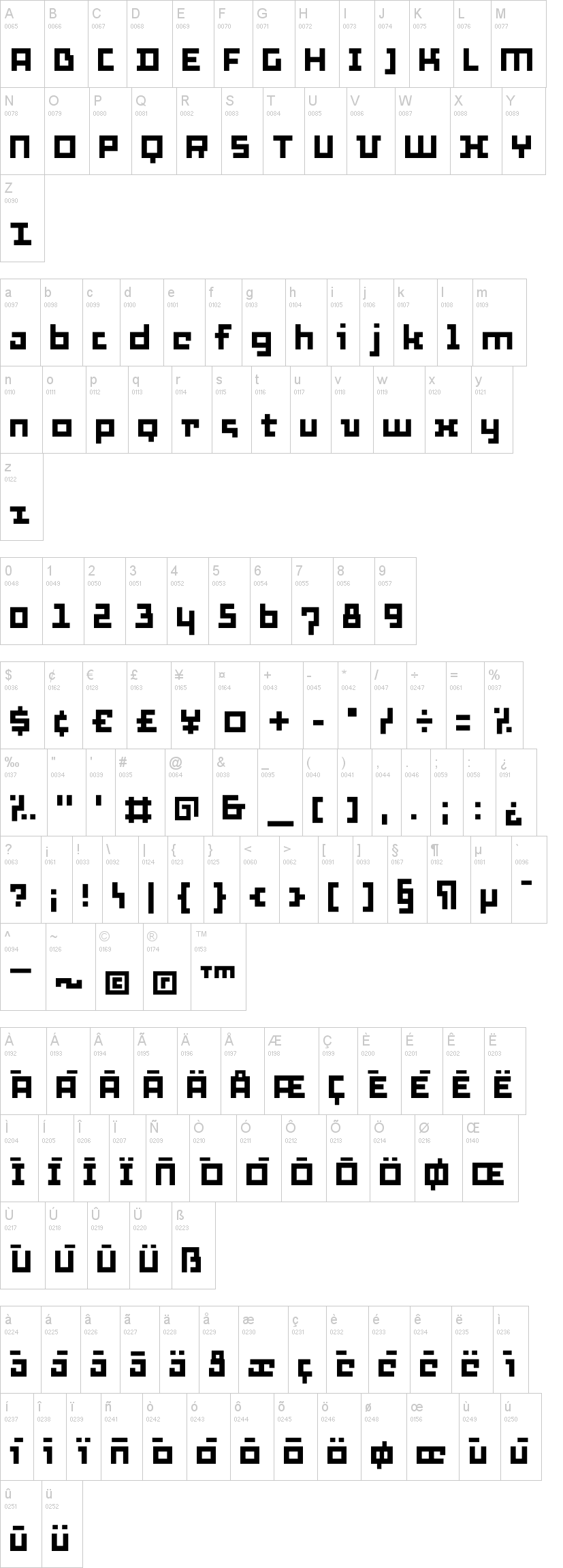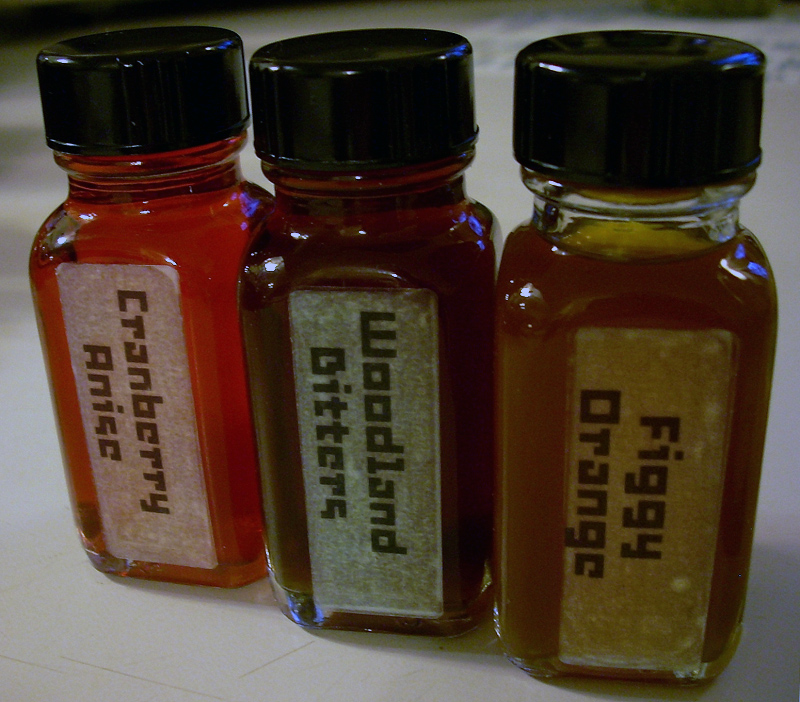
Note of the authorConstructed on a grid of 25/1000, or about six times more refined than the "six" font http://www.dafont.com/six.font. As the rhythm is 6 times weaker, there is 6 times more room for detail? "Proving" that character-timed rhythm can hardly be a factor of legibility.